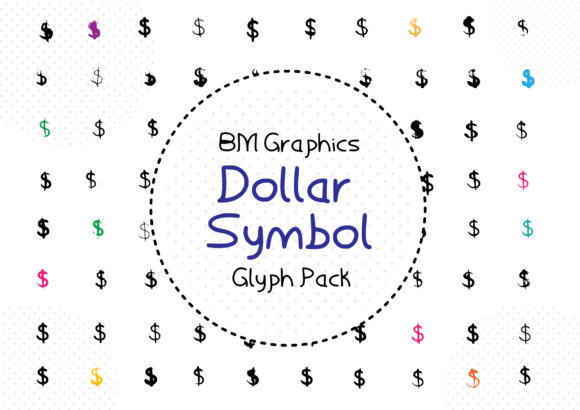
Dive into the world of graphic design with BM Graphics - Dollar Symbols Font, a remarkable dingbats font that will effortlessly elevate your creations. Unleash your creativity with a captivating font that combines style and substance.
With its 81 meticulously crafted glyphs, Dollar Symbols Font empowers you to add a touch of personality to your designs. Whether you're working on logos, branding, social media graphics, or any other project that demands a distinctive flair, this font will deliver.
Imagine the impact when your designs come to life with the alluring charm of Dollar Symbols Font. Its versatility knows no bounds; it seamlessly complements a wide range of aesthetics, from whimsical and playful to elegant and sophisticated.
Picture your creations adorned with the eye-catching glyphs of Dollar Symbols Font, each stroke infused with a sense of style and originality. It's the perfect choice for designers seeking a font that exudes both uniqueness and professionalism.
Don't settle for the ordinary; embrace the extraordinary with BM Graphics - Dollar Symbols Font. Transform your designs into masterpieces that captivate and inspire, leaving an unforgettable impression on your audience.